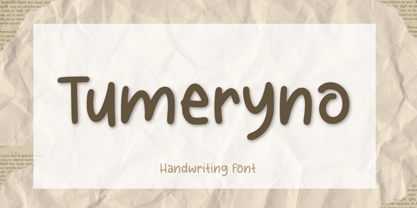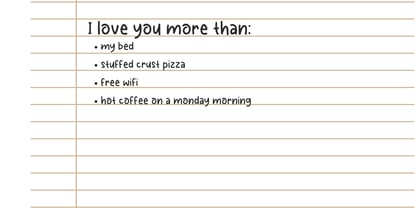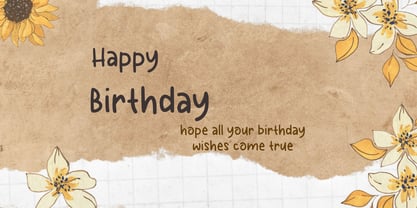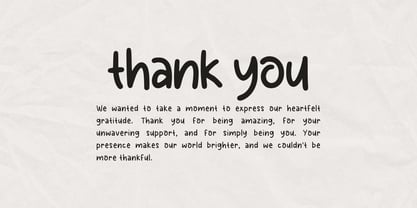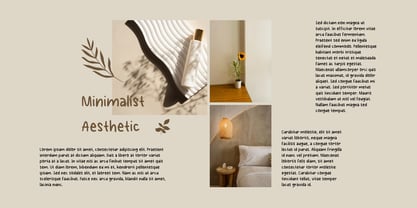
Tumeryno
by Aisyah
The Tumeryno Font Family was designed by Nur Aiysah Amalia and published by Aisyah. Tumeryno contains 1 styles. More about this family
Tumeryno is an elegant and charming handwritten font that combines a soft, graceful character with a dreamy and romantic touch. Its delicate strokes and natural flow create a warm, sophisticated feel while remaining easy to read, making it suitable for both short phrases and longer texts. Perfect for invitations, wedding stationery, branding, logos, packaging, beauty products, lifestyle projects, social media, crafts, and creative businesses. Peace Dreamy brings a timeless, personal, and effortlessly graceful touch to every design.
Designers: Nur Aiysah Amalia
Foundry: Aisyah